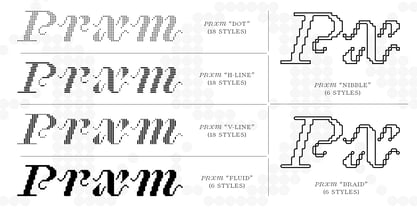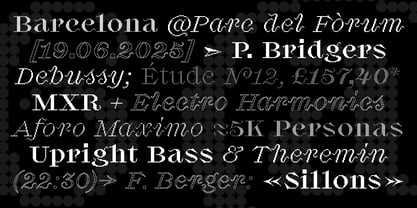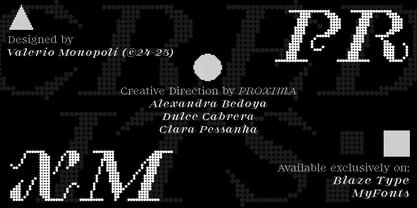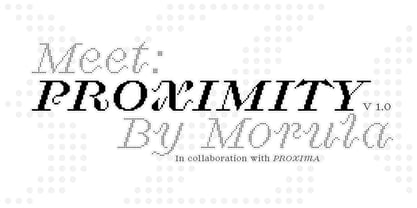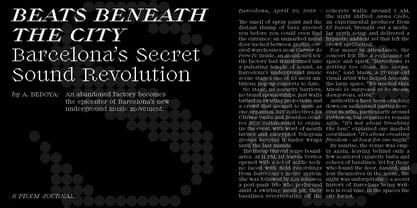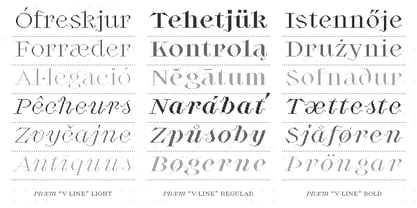
Proximity
by Blaze Type
The Proximity Font Family was designed by Valerio Monopoli and published by Blaze Type. Proximity contains 96 styles and family package options.
Proximity originated as a custom-designed italic font for PROXIMA, a collaborative studio for creative direction and production in live music, based in Barcelona. Rooted in PROXIMA’s ethos of collaboration, process, and temporality, the font reflects the studio’s mission to design ephemeral atmospheres through collective work tailored to each project. The studio values connection, dialogue, and care in curating creative teams, principles that inspired the conceptual foundation of the typeface: a pixel grid symbolising individual elements that, when connected, form complex and meaningful structures, i.e. communities that are greater than the sum of their parts. While it begins as a pixel-based font, Proximity evolves into a broader type system comprising six additional families: two formed by horizontal and vertical lines, two that merge all pixels into continuous fluid shapes, and two expressive outlined styles that maximise visual variety. Beneath its pixelated surface lies the framework of a refined, highly versatile serif typeface with distinctive details, one that breaks free from the tropes of 8-bit and computerised aesthetics often associated with this modular approach and bridges them with the sophistication and nuance of classical typography. Designed for clarity and uniqueness at any size, the typeface spans three weights with matching italics, and it’s available in both static and variable formats, each cut coming with an adjustable pixel size for precise typographic control and great potential for animated content